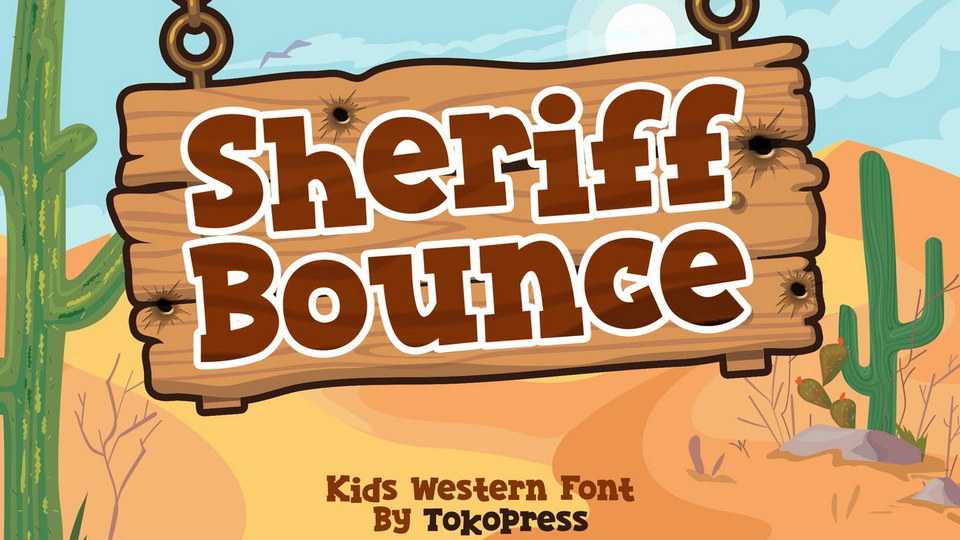
Download Sheriff Bounce font, a kids western typeface. It is western, it is a bouncy baseline, it is Sheriff Bounce, your new favorite western kids font in town.